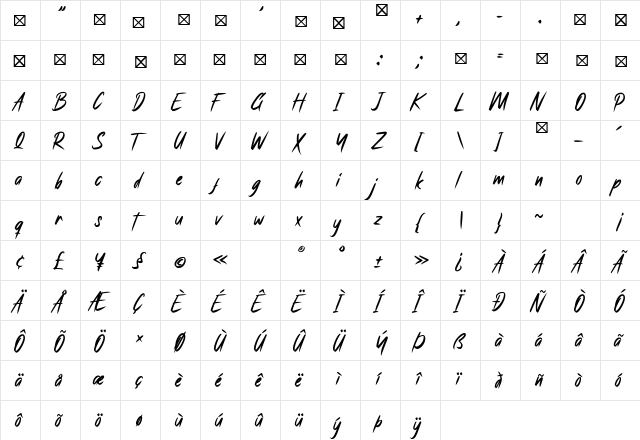
Southaven Regular
| Foundry | Yunita Ecy |
| Designer | Yesie Erma Yunita |
Design Context for Southaven Typeface
Southaven takes a measured approach to typography — its balanced proportions and neutral character make it a reliable workhorse for both digital and print work.